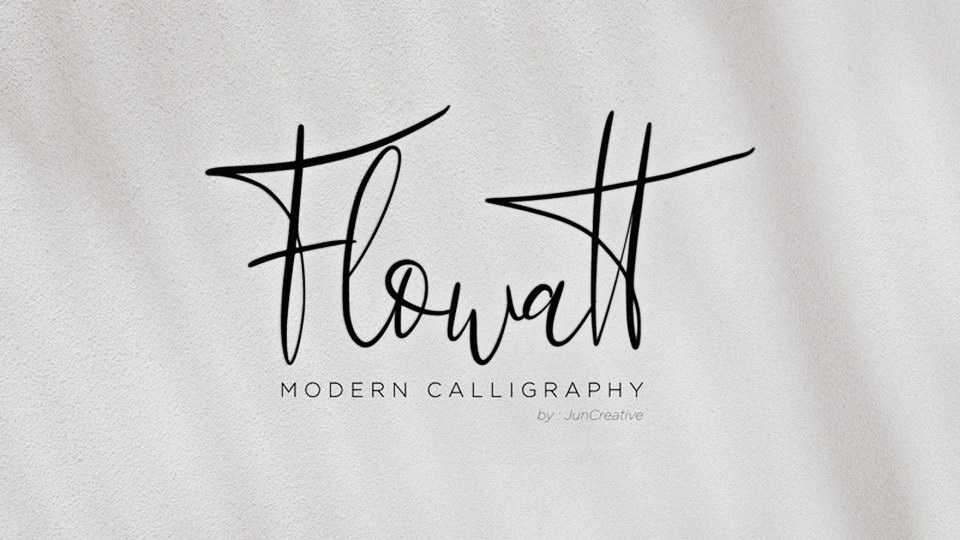
Download Flowatt font, a beautiful modern calligraphy script with an elegant and natural look. Flowatt script looks perfect for logos and branding, wedding decoration, fashion and media, card, letters and more.